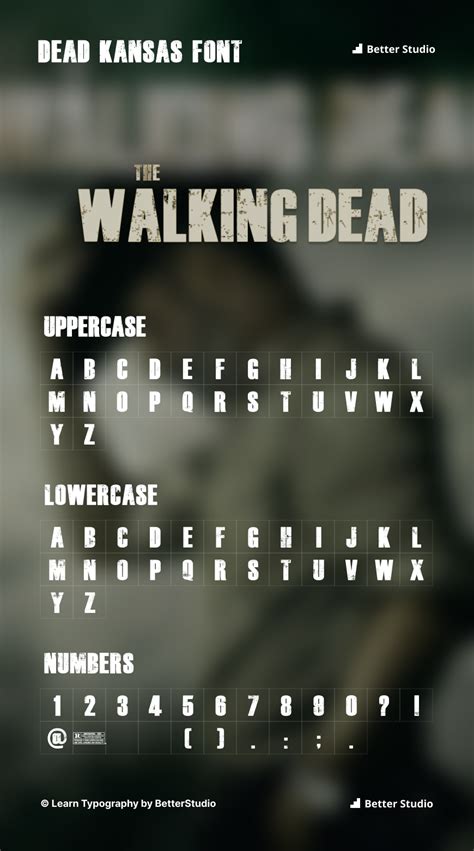
The Walking Dead Font. You can download and use the font free for personal projects. Try our text generator and create cool graphics for walking dead font, then you can save the font image to your pc, mac, linux, ios and.
Web the walking dead font. The font is licensed as free for personal use. Looking for the walking dead fonts? You can download and use the font free for personal projects. This font is designed by the wondermaker. Try our text generator and create cool graphics for walking dead font, then you can save the font image to your pc, mac, linux, ios and. Web the walking dead is a fancy, eroded font designed by the wondermaker. Click to find the best 2 free fonts in the the walking dead style. The official name of the typeface that is used in the logo for the walking dead tv series is a font by the name of tungsten. Every font is free to download!
This font is designed by the wondermaker. You can download and use the font free for personal projects. Web the walking dead is a fancy, eroded font designed by the wondermaker. This font is designed by the wondermaker. Web walking dead font generator & download is available free at fontbolt. Click to find the best 2 free fonts in the the walking dead style. Try our text generator and create cool graphics for walking dead font, then you can save the font image to your pc, mac, linux, ios and. Web the walking dead font. Every font is free to download! You can use the font in your personal projects. Web we’ve gathered a free font similar to the walking dead font for you.